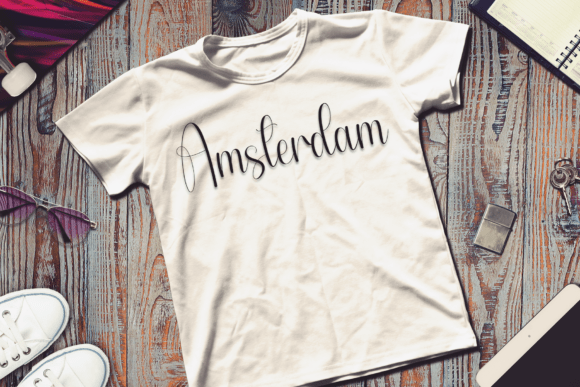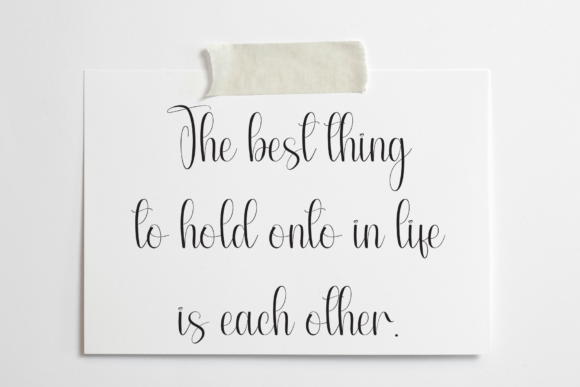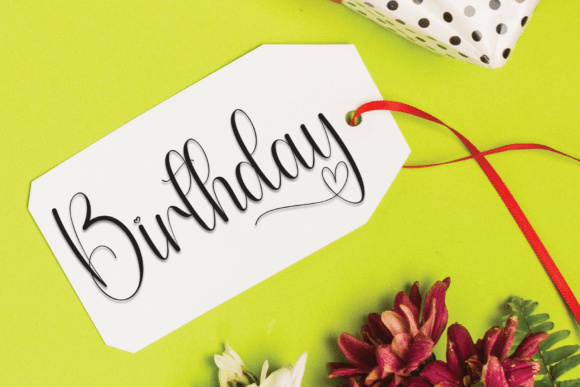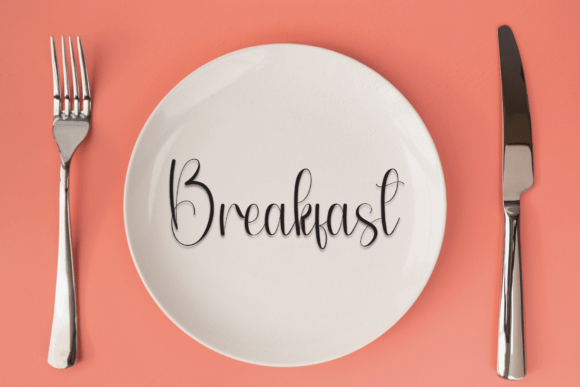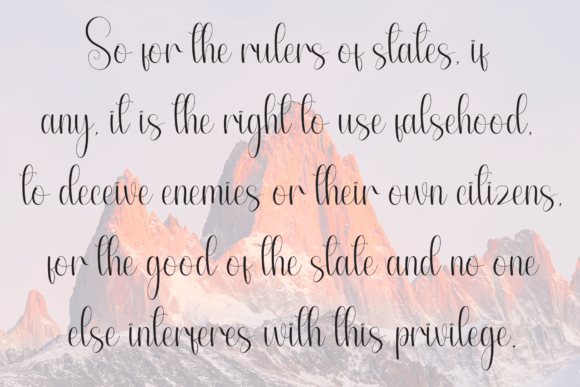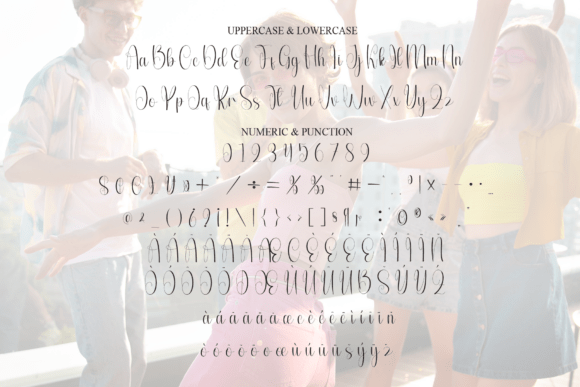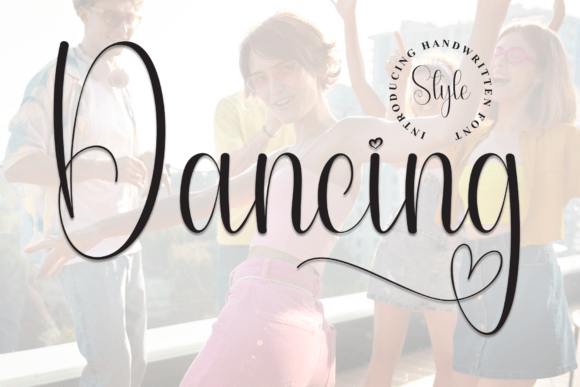
Dancing Font: Elevate Your Design with Elegance and Flair
Are you looking for a font that can add a touch of sophistication and modernity to your design projects? Look no further than the Dancing Font, a stylish handwritten script font that combines elegance with a modern flair. With its flowing strokes and organic curves, this typeface brings warmth and refinement to any project, making it ideal for designers and crafters seeking to create a lasting impression.
The Characteristics of Dancing Font
Dancing Font is a carefully crafted handwritten script font that boasts a range of characteristics that set it apart from other typefaces. Its key features include:
• Flowing strokes: The font’s smooth, connected strokes create a sense of fluidity and movement, adding a dynamic touch to your designs.
• Organic curves: The font’s curves are natural and effortless, giving it a friendly and approachable feel that’s perfect for branding, invitations, and social media.
• Elegant and refined: Dancing Font exudes sophistication and poise, making it an excellent choice for designers seeking to create high-end designs.
Uses for Dancing Font
Dancing Font is an incredibly versatile typeface that can be used in a wide range of design projects, including:
• Branding: Add a touch of elegance and sophistication to your brand’s identity with Dancing Font.
• Invitations: Create beautiful, eye-catching invitations for weddings, parties, and other special events.
• Social media: Elevate your social media presence with Dancing Font, perfect for creating engaging captions, graphics, and stories.
• Packaging: Add a personal touch to your product packaging with this charming font.
Benefits of Using Dancing Font
So why choose Dancing Font for your design projects? Here are just a few benefits of using this beautiful typeface:
• Effortless charm: Dancing Font adds a personal, refined touch to your designs without looking too formal or over-the-top.
• Flexibility: This font can be used in a range of design projects, from digital to print.
• Easy to read: Despite its elegant and cursive nature, Dancing Font remains highly legible, even at smaller sizes.
Tips for Using Dancing Font Effectively
To get the most out of Dancing Font, here are a few tips to keep in mind:
• Pair with contrasting fonts: Combine Dancing Font with a bold, sans-serif font to create visual interest and contrast.
• Experiment with colors: Try pairing Dancing Font with a range of colors to find the perfect combination for your design.
• Don’t be afraid to get creative: Dancing Font is a versatile typeface that can be used in a range of design projects – don’t be afraid to think outside the box.
Dancing Font is a beautiful, stylish handwritten script font that combines elegance with a modern flair. With its flowing strokes, organic curves, and effortless charm, this typeface is perfect for designers and crafters seeking to add a touch of sophistication to their design projects. Whether you’re working on branding, invitations, social media, or packaging, Dancing Font is an excellent choice. So why not give it a try and see the difference it can make in your designs?